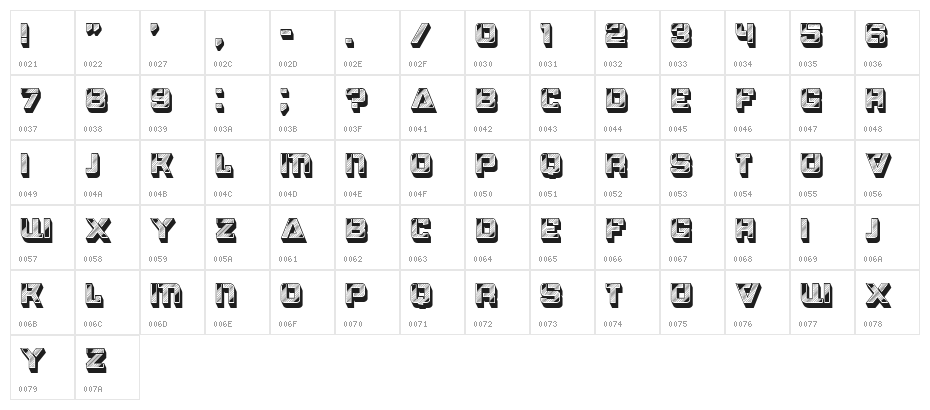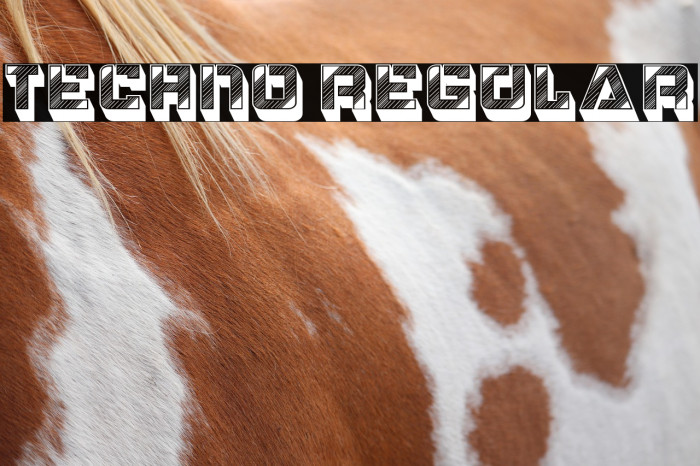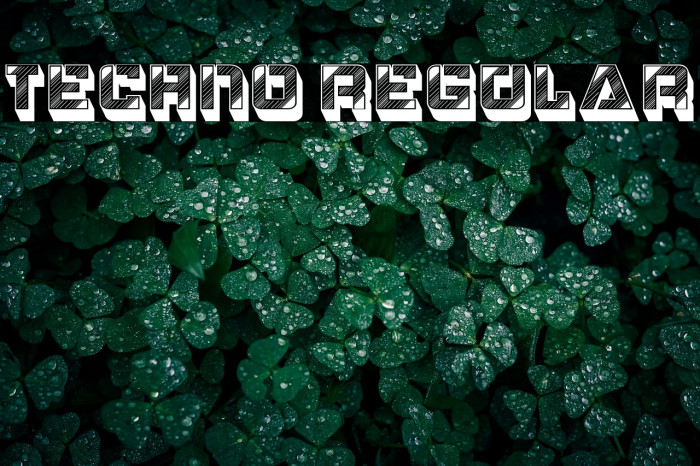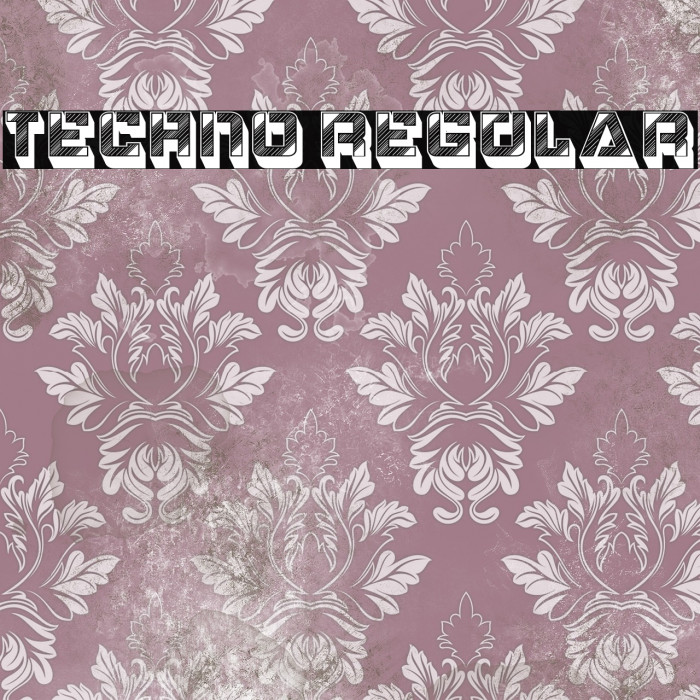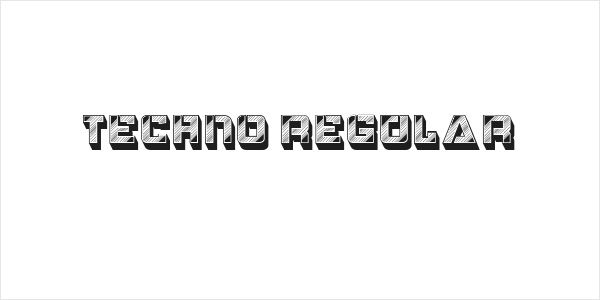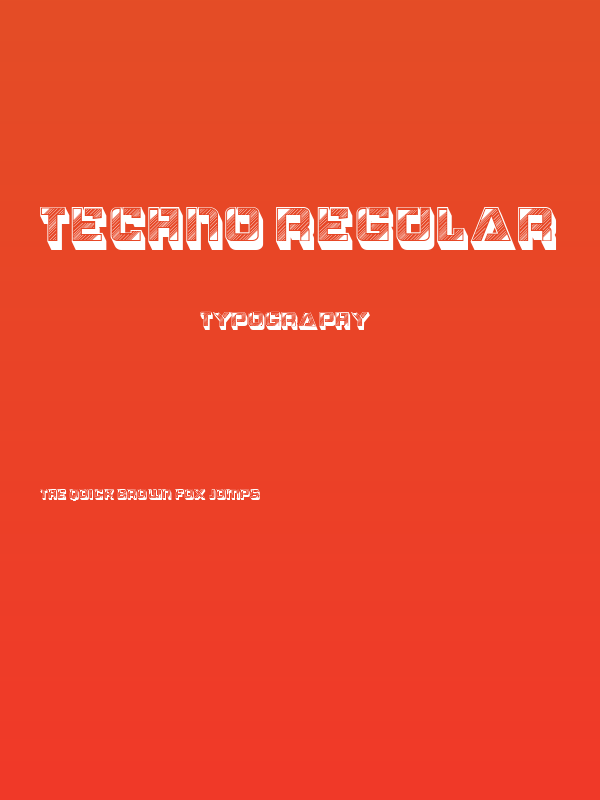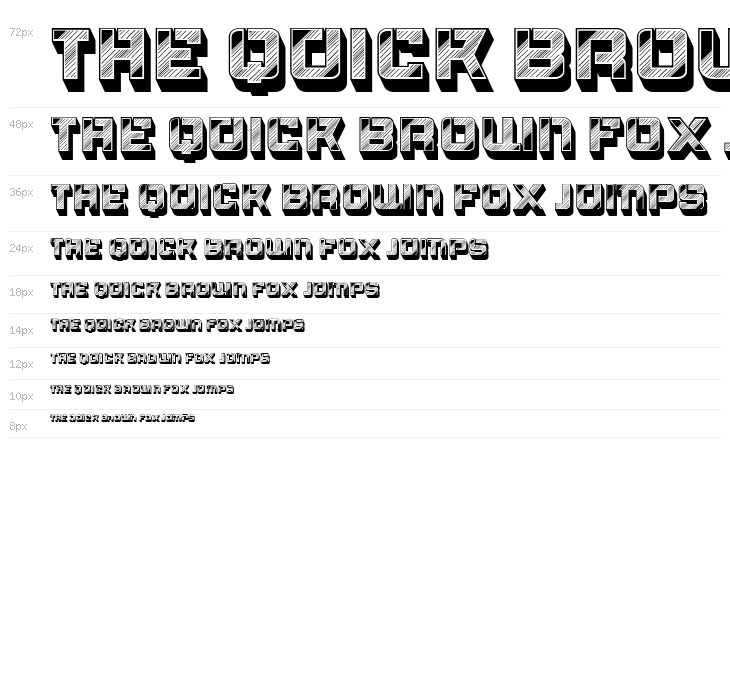
Techno Regular Font
Techno Regular Description
This font features a bold, futuristic design with a three-dimensional effect that gives each character a sense of depth and movement. The letters are constructed with a combination of solid and striped patterns, creating a dynamic visual texture. The angular, geometric shapes are reminiscent of digital or technological themes, making it ideal for projects that require a modern and edgy look. The font's strong presence and unique style make it suitable for attention-grabbing headlines or logos.